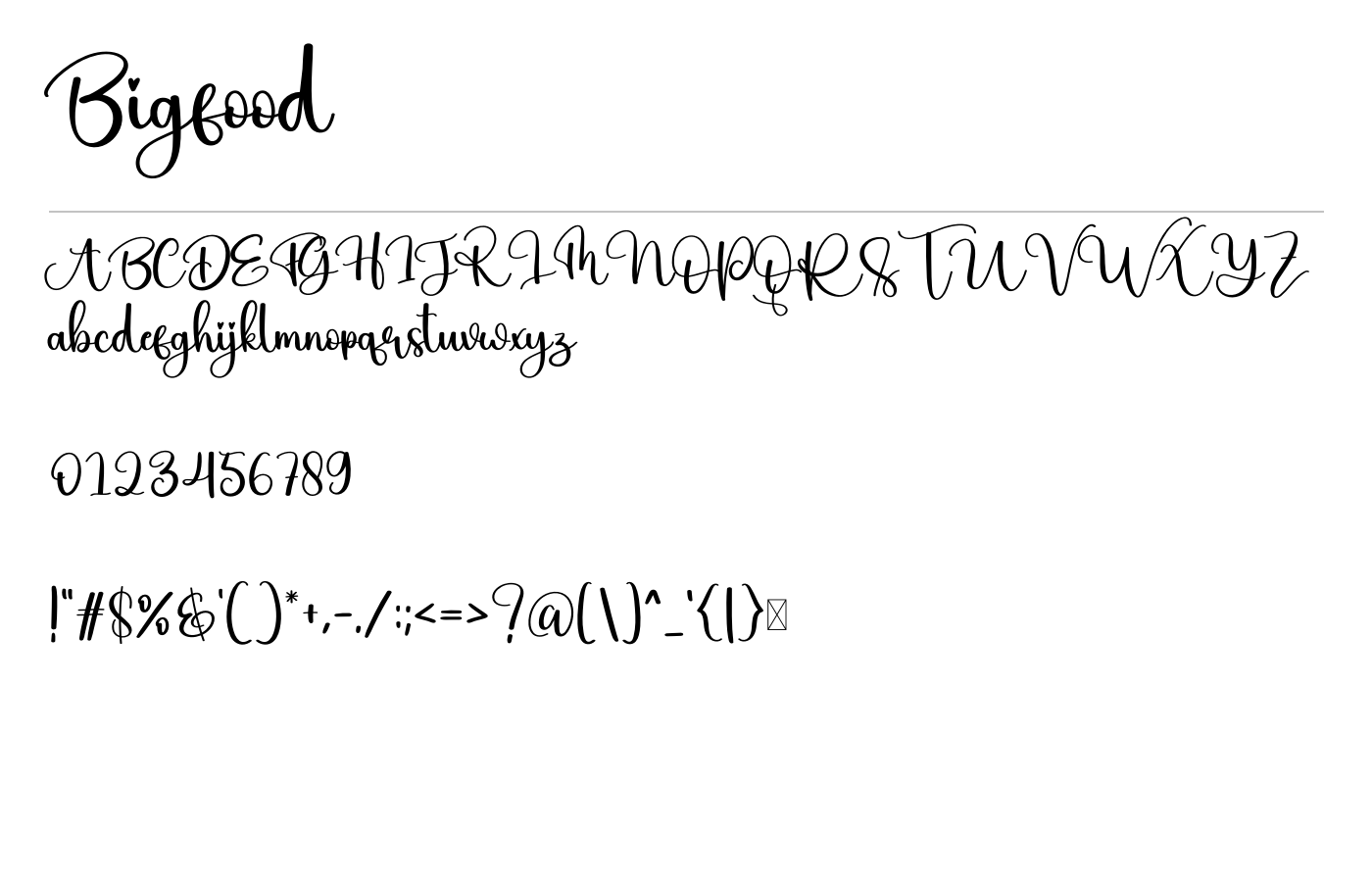
Bigfood Font is an elegant, handwritten script with a playful and charming feel, featuring smooth, flowing strokes and stylish swashes that add personality. It works beautifully for branding, invitations, and creative projects where a casual yet refined touch is desired. This font’s warm and friendly style makes it ideal for fashion, food, and lifestyle designs aiming to convey approachability and uniqueness.
Bigfood Font
About Bigfood Font